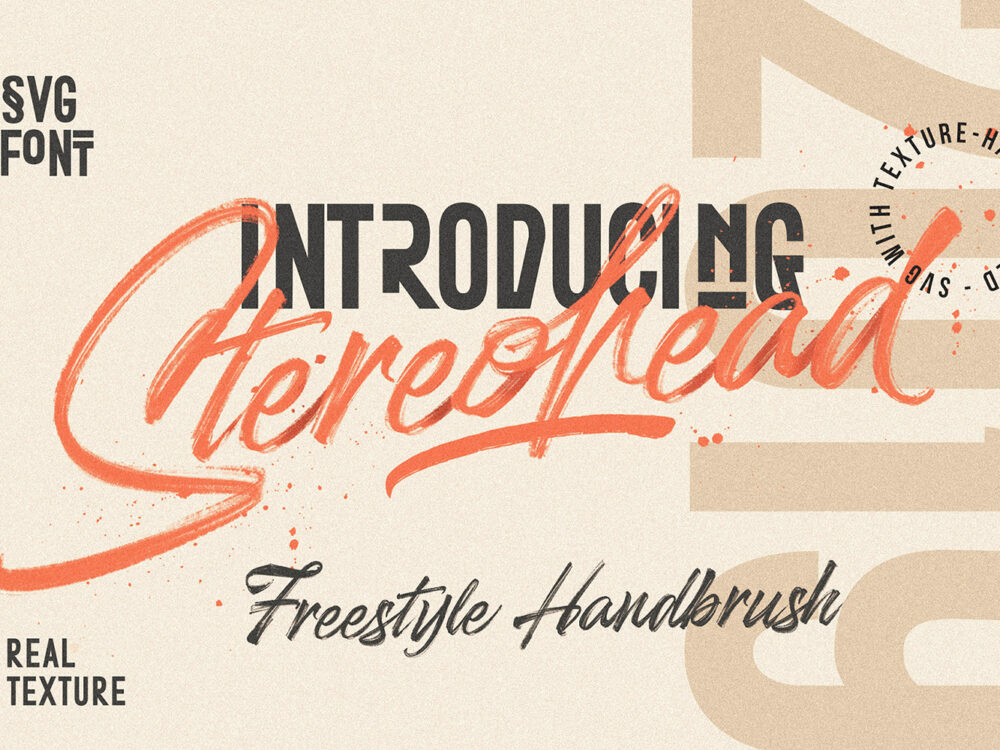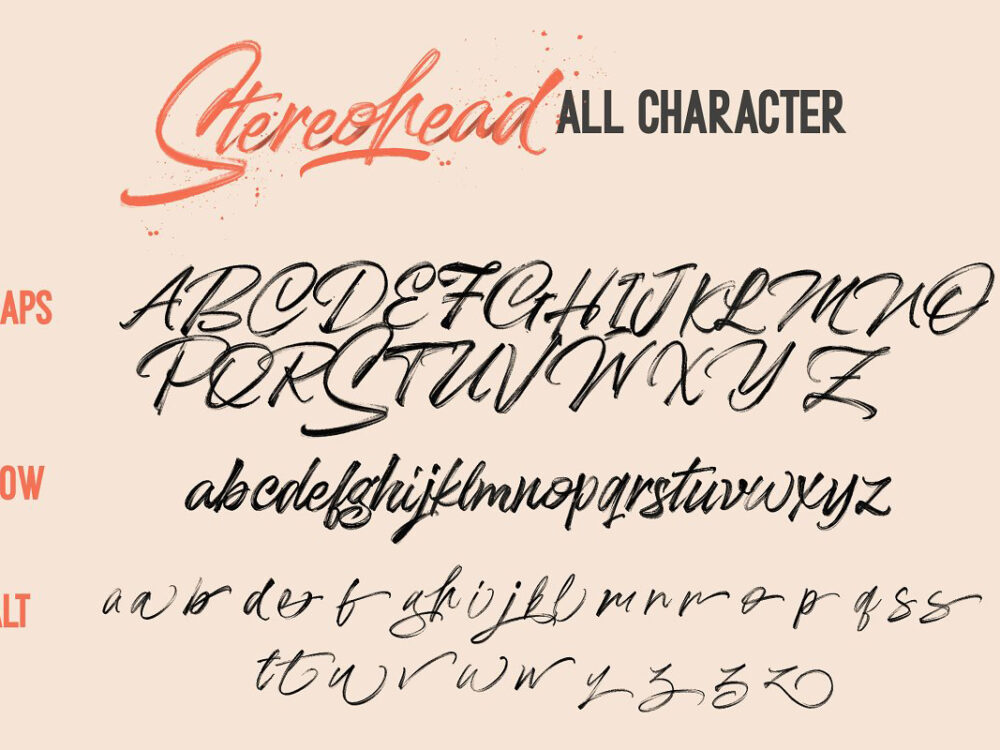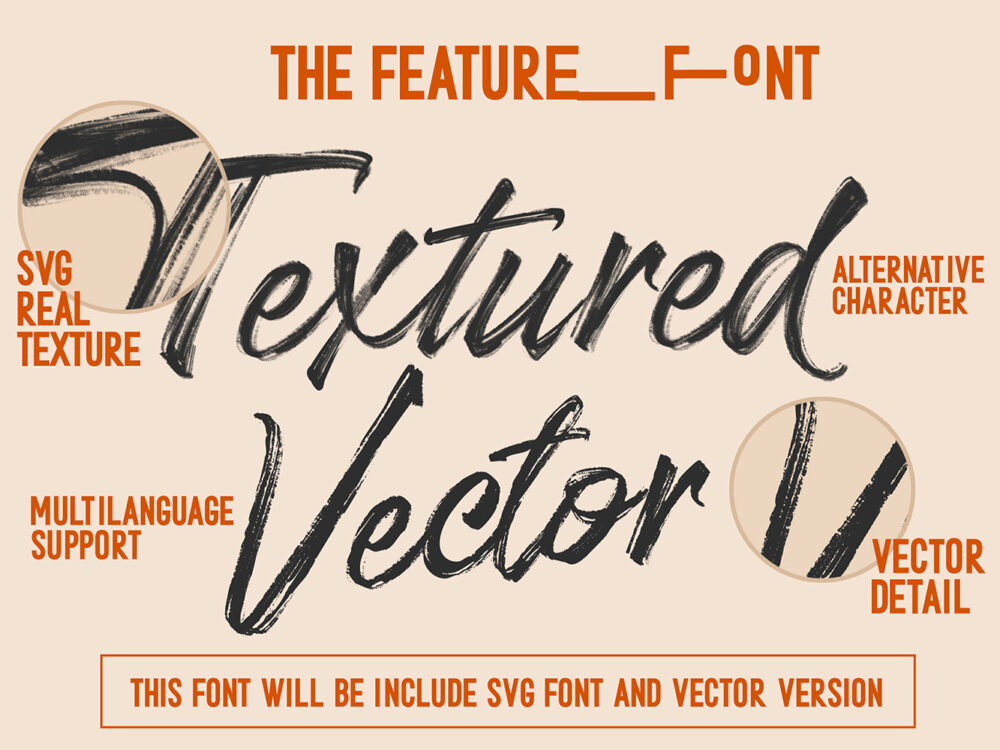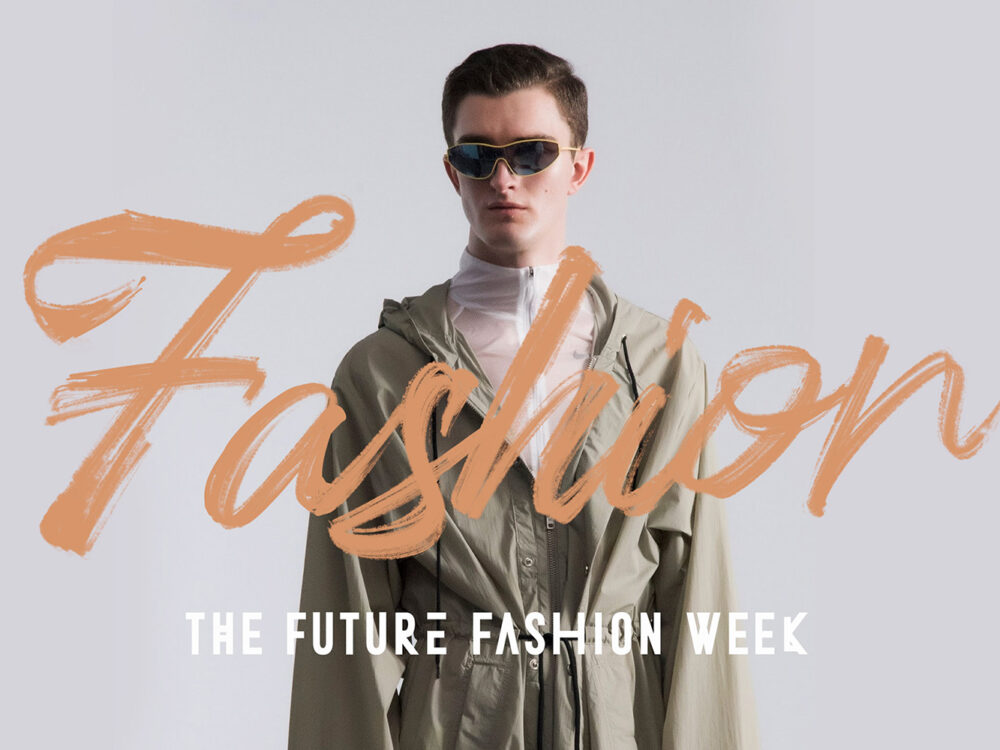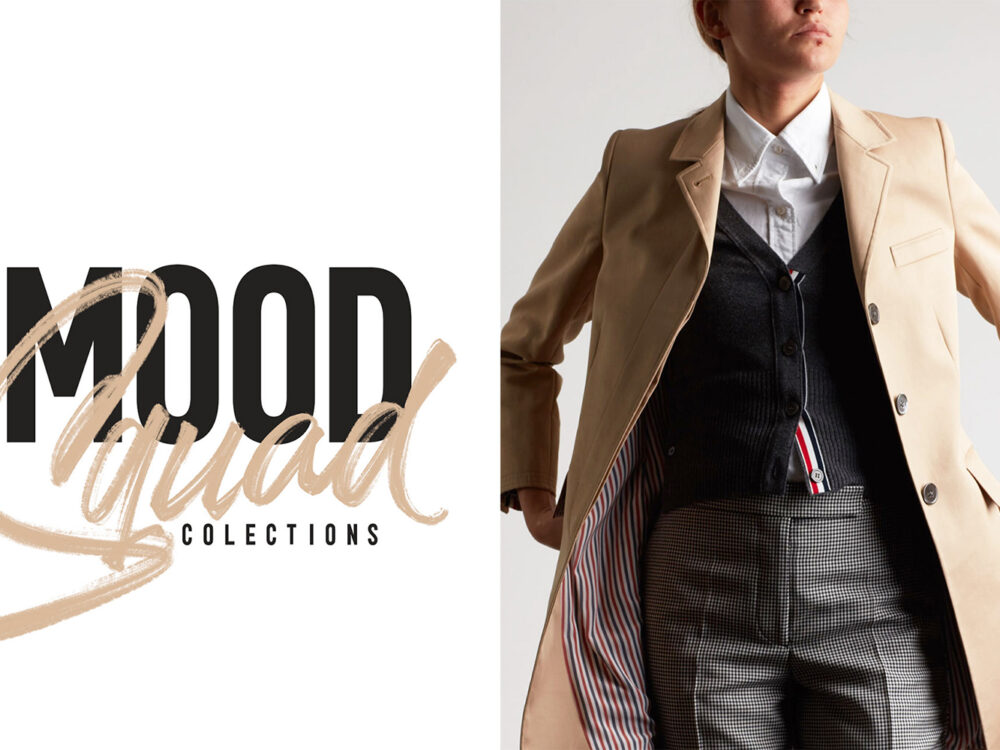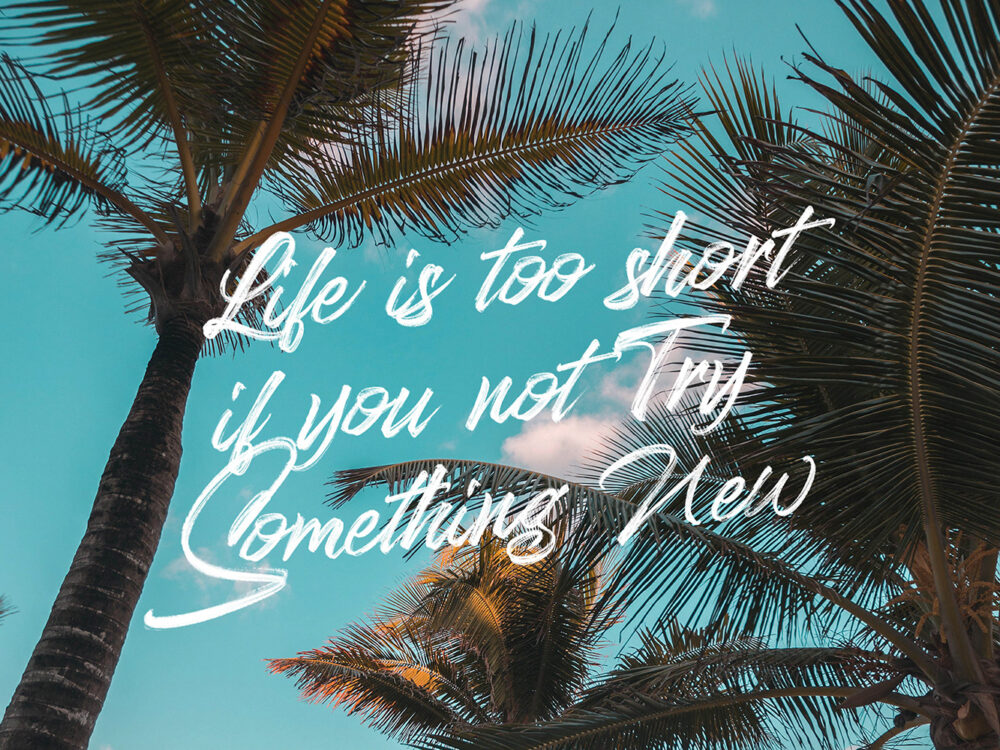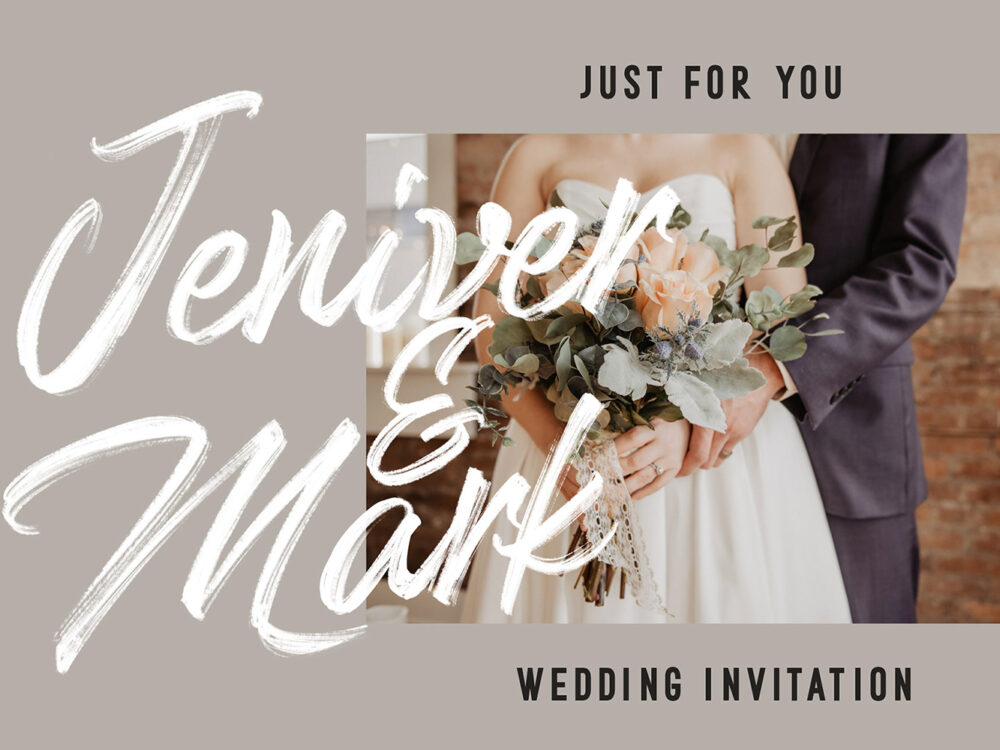
Stereohead Brush Lettering Font
Stereohead Brush Lettering Font is a beautiful handwritten typeface that has a wet brush style. This font is perfect for creating projects that require elegant handwriting. These can be posters, cards, invitations, clothing prints, and more. If you wish to access more features and use it for commercial work please buy the full version.